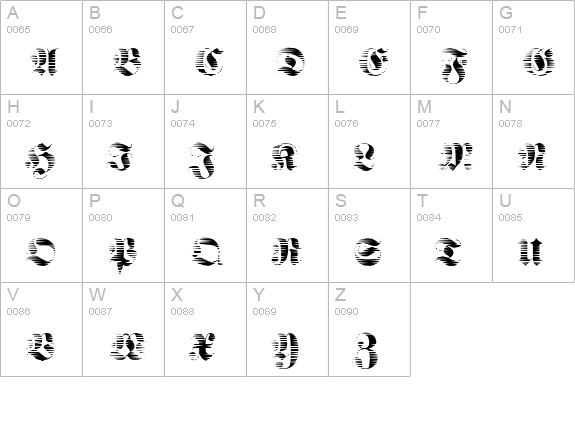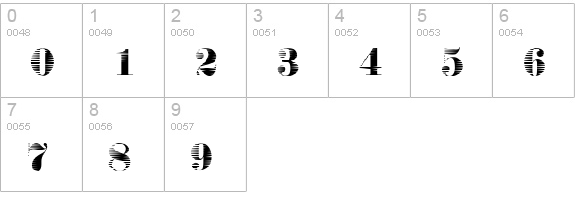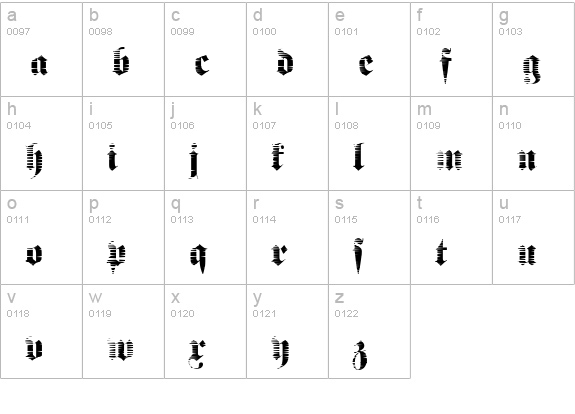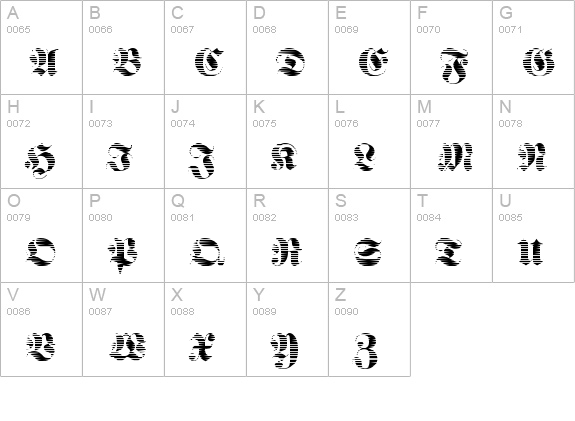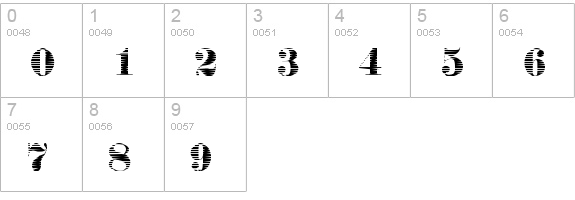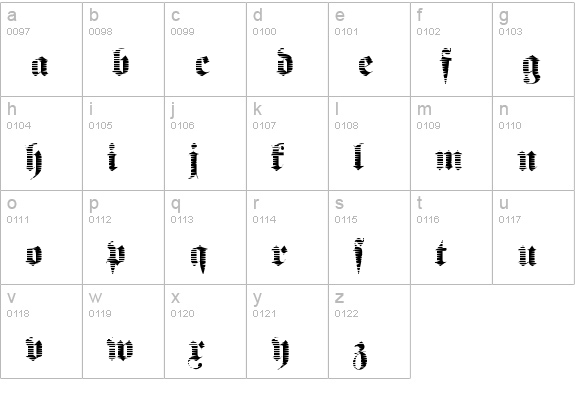
FrakturSawmill2-Regular Font Details
FrakturSawmill2-Regular is the standard, neutral variant in the FrakturSawmill2 typeface family \xE2\x80\x94 well suited to general body text, paragraphs, and standard typographic work.
FrakturSawmill2-Regular is a beautifully crafted font that exudes elegance and sophistication. Its unique Fraktur style gives it a classic yet modern look, making it perfect for a wide range of design projects. The sharp, angular lines and intricate details of this font make it stand out and capture attention. What sets FrakturSawmill2-Regular apart is that it is not only visually stunning, but also completely free to use. You can easily download this font at FontsMarket.com and enhance your designs with its timeless appeal. Whether you are working on a branding project, a website design, or any other creative endeavor, FrakturSawmill2-Regular is sure to add a touch of refinement and style. Don't miss out on this opportunity to elevate your designs with this exceptional font!